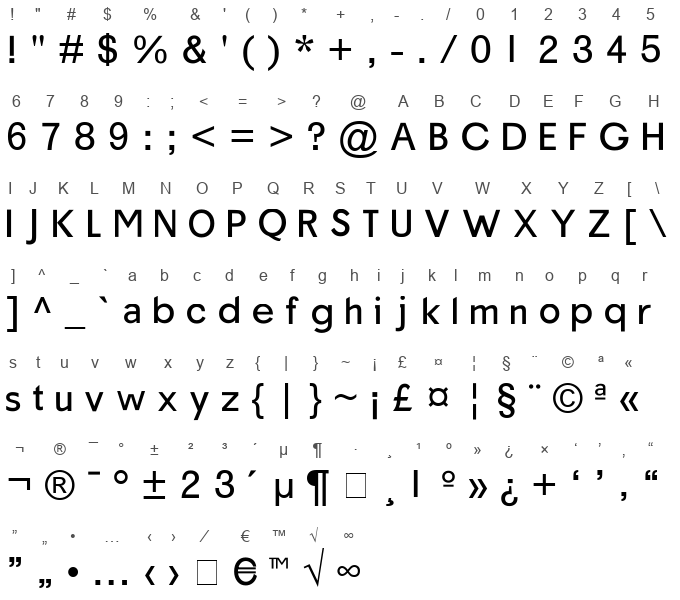
Macro is a contemporary typeface known for its versatility and dynamic character. It harmoniously marries readability with a unique design aesthetic, making it a favored choice among designers and typographers for a wide range of applications. At its core, Macro displays a strong foundation in geometric principles, yet it eschews a purely mechanical feel in favor of subtle humanist touches. This balance imbues the font with a warm, approachable quality that is often lacking in more sterile geometric designs.
The design of Macro is distinguished by its clean lines and open shapes, which ensure excellent legibility at various sizes, from the minutiae of body text to the boldness required for headlines and signage. The character set is comprehensive, supporting multiple languages and special typographic features, making Macro a versatile workhorse in a professional setting. The typeface comes in several weights and styles, which include but are not limited to, light, regular, bold, and italic variants. This range allows for a high degree of flexibility in hierarchical design and emphasis, catering to a broad spectrum of design projects.
Macro's contemporary vibe is well-suited to branding, editorial design, and digital applications. Its clarity and simplicity lend an air of sophistication and modernity to layouts, while its nuanced character details provide a distinctive voice. As a bridge between the geometric and humanist sans-serif traditions, Macro occupies a sweet spot that appeals to both purists and innovators in the design community. Its creation is a testament to the evolving nature of typography in response to the demands of digital and print media, offering a fresh perspective while maintaining usability and function at its heart.
Macro